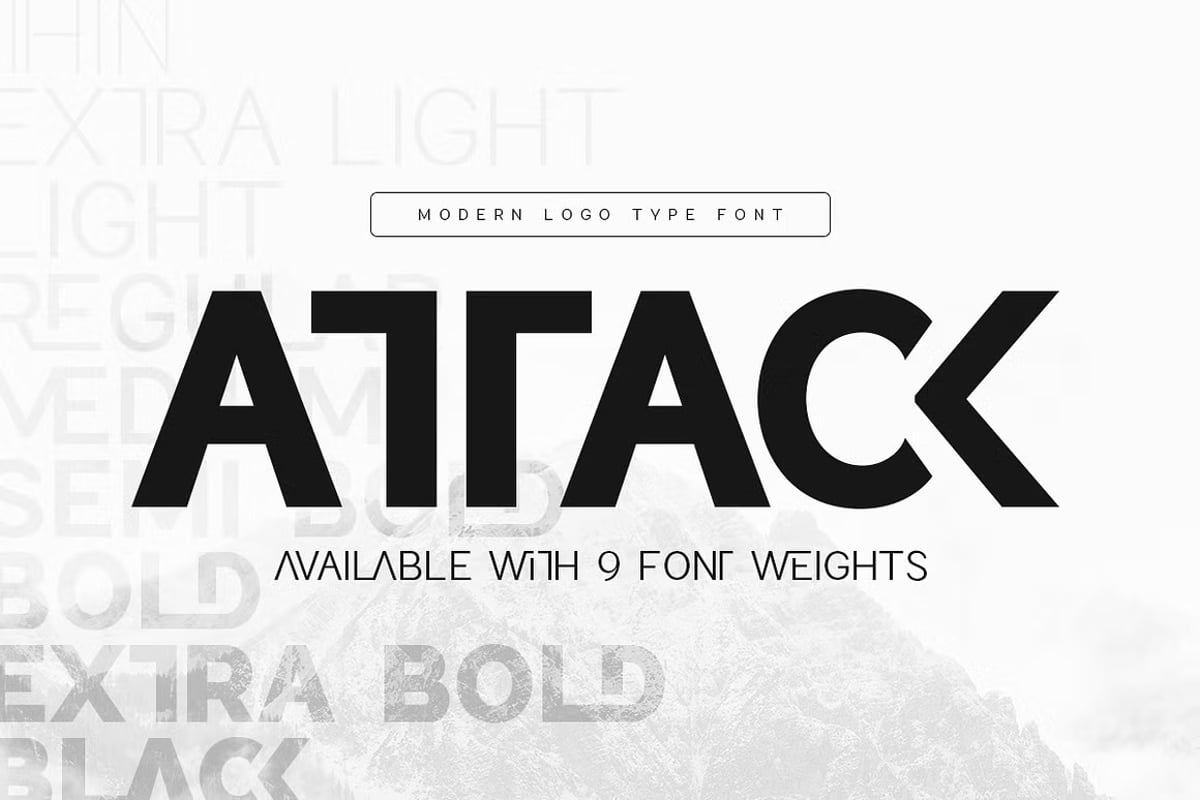
Attack - Corporate Logo Font
Attack is a well-balanced modern sans serif font with minimalist design perfect for corporate logos and branding projects. This unique and iconic sans serif typeface offers easy customization through ligature combinations, allowing you to create distinctive variations and shapes in seconds. The minimalist style delivers exceptional legibility while maintaining a contemporary edge that works seamlessly across multiple design applications. Perfect for branding projects, logo design, poster layouts...